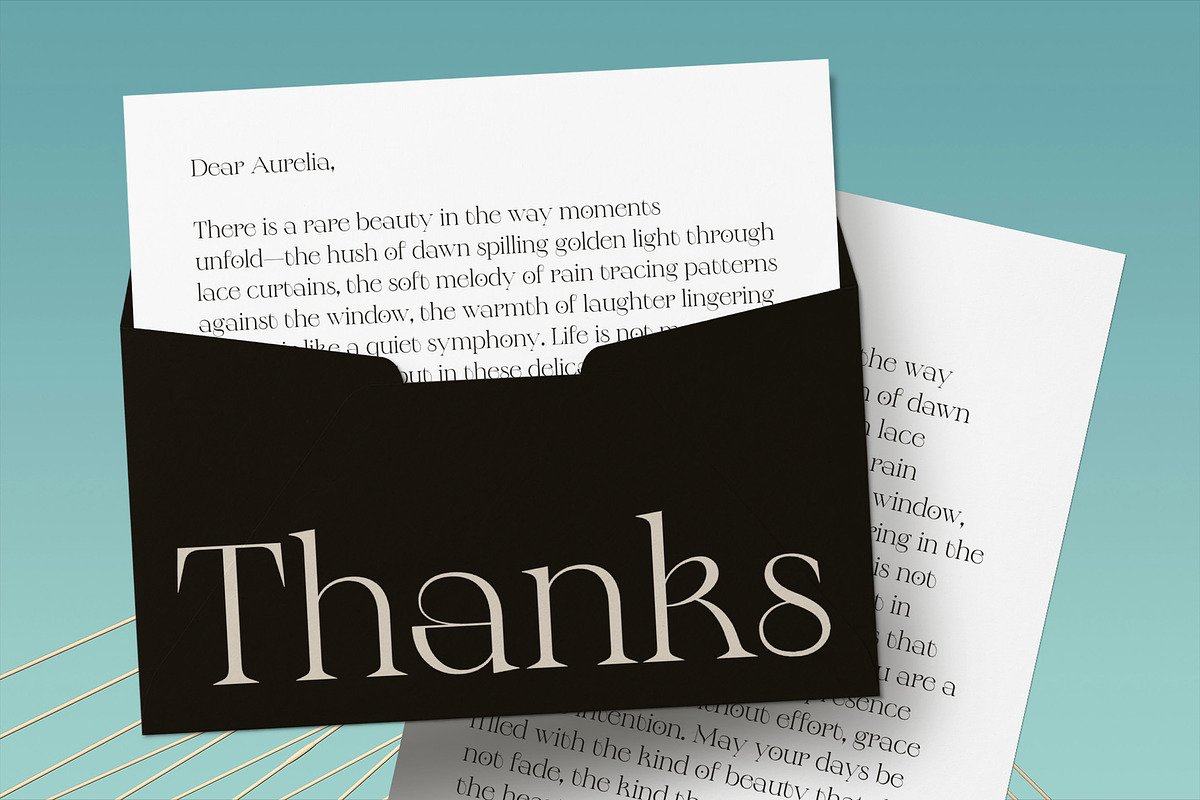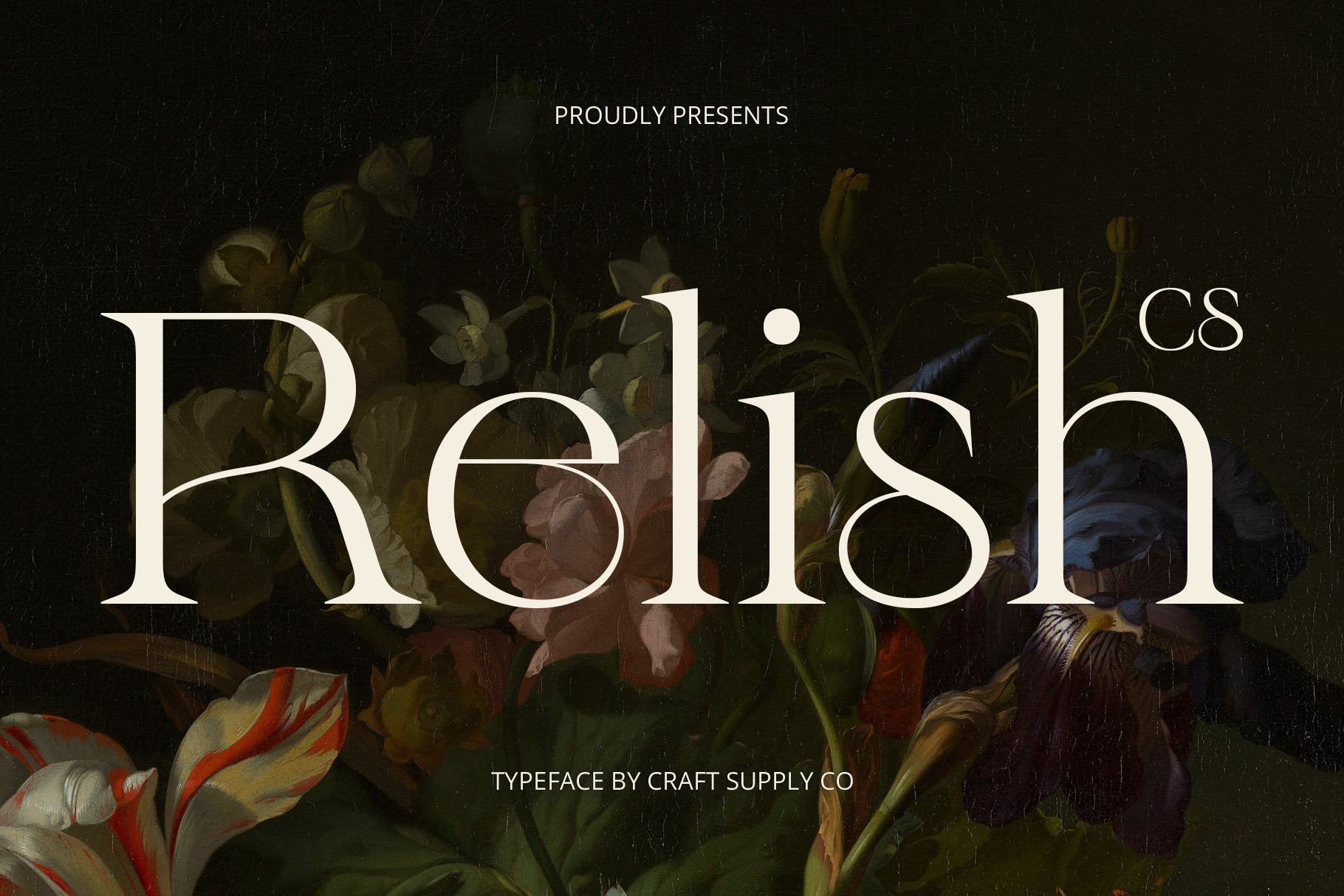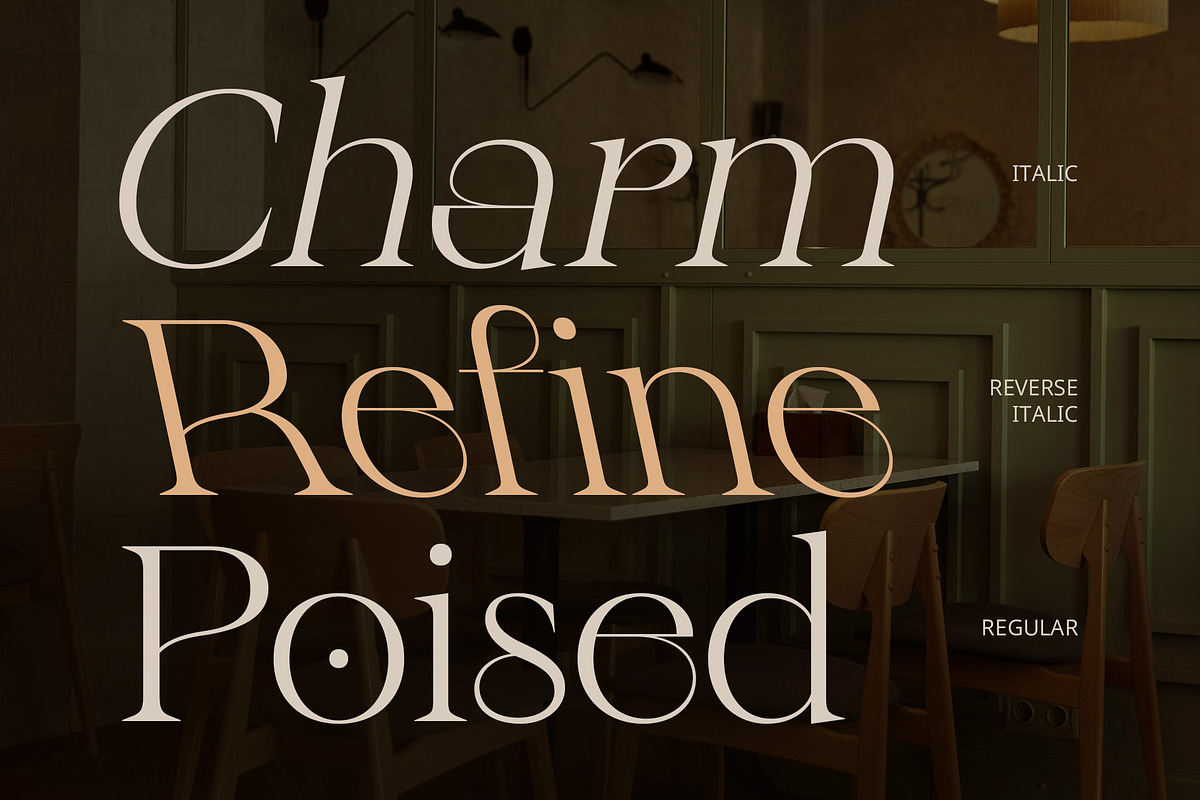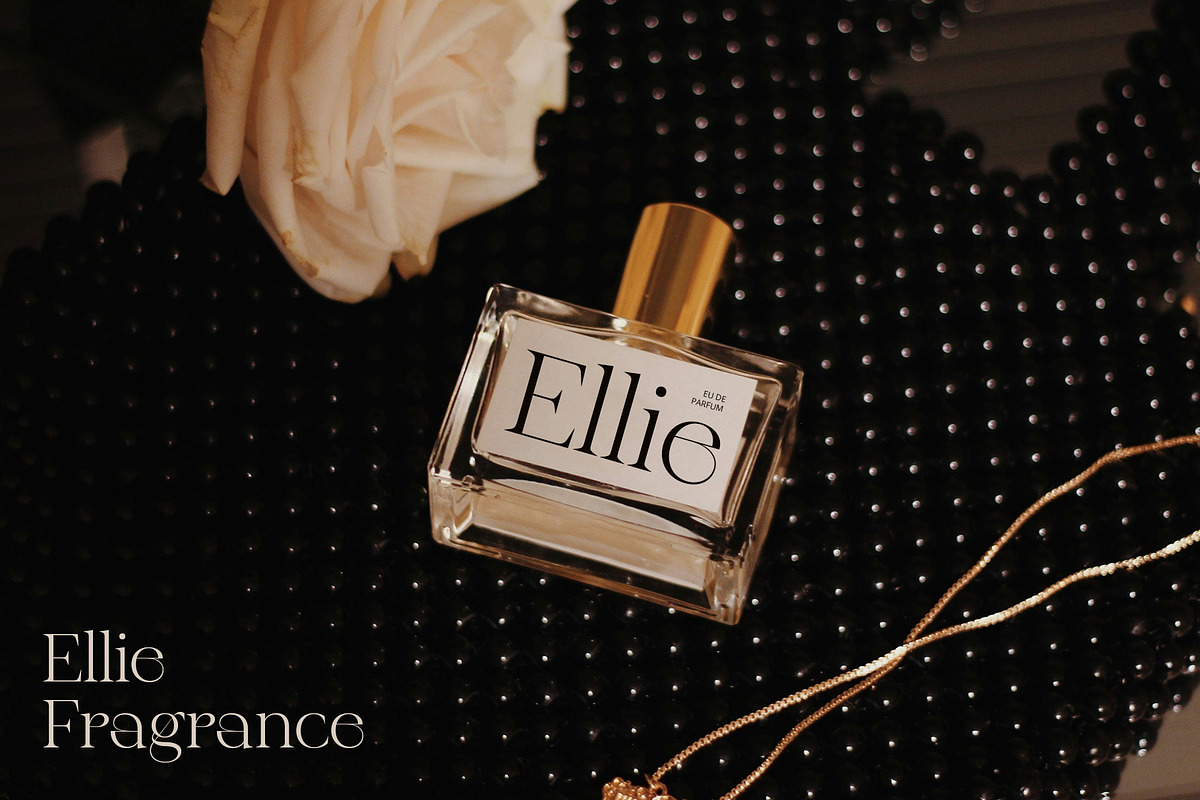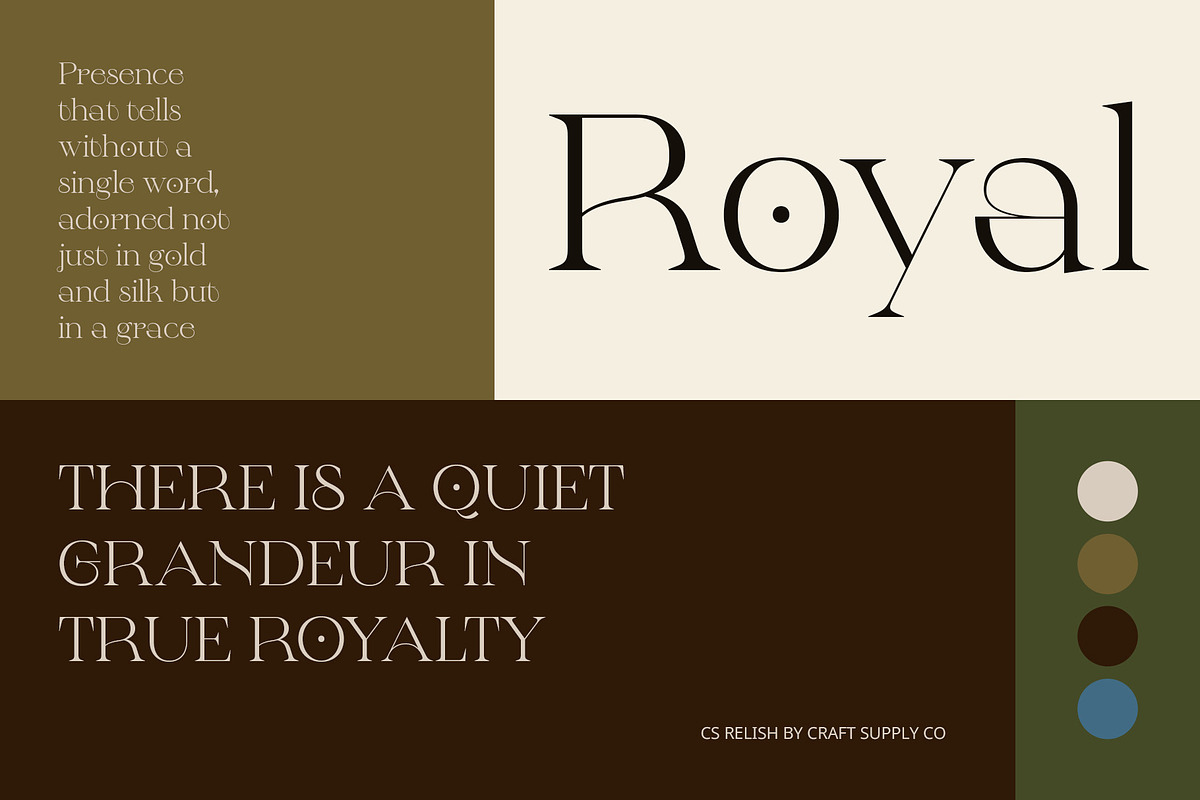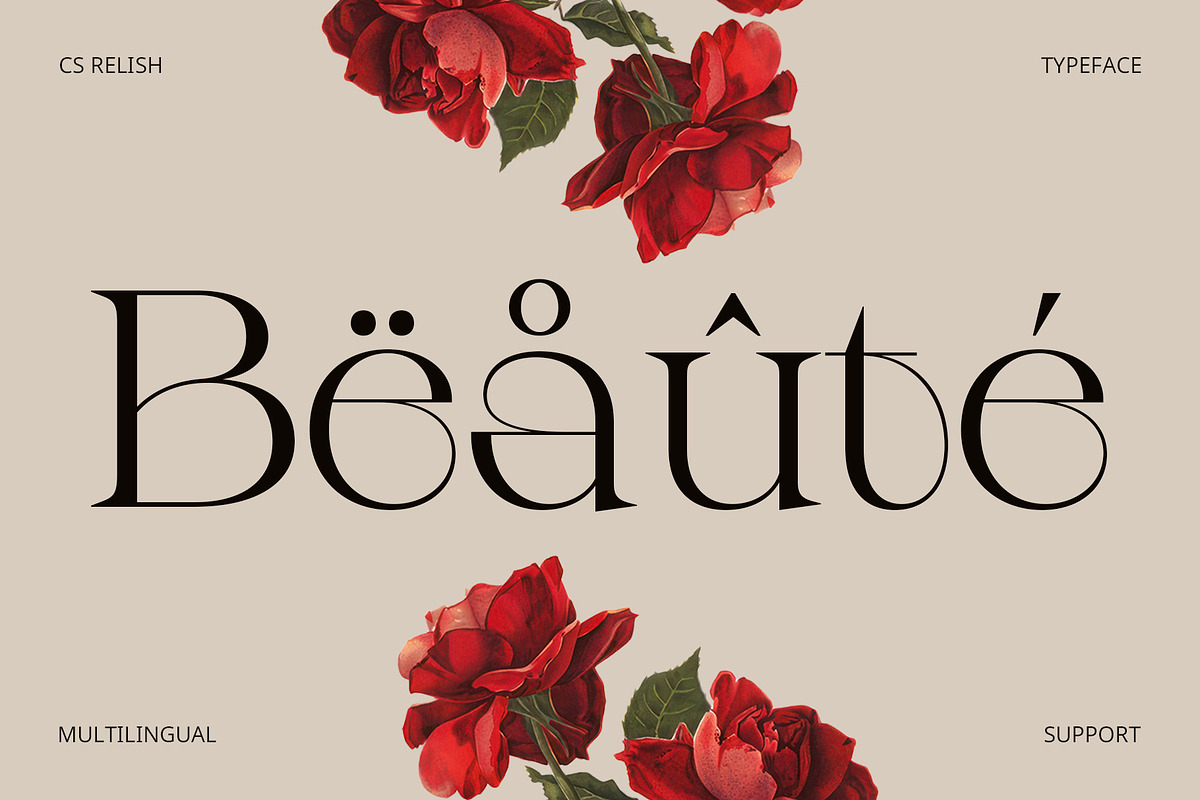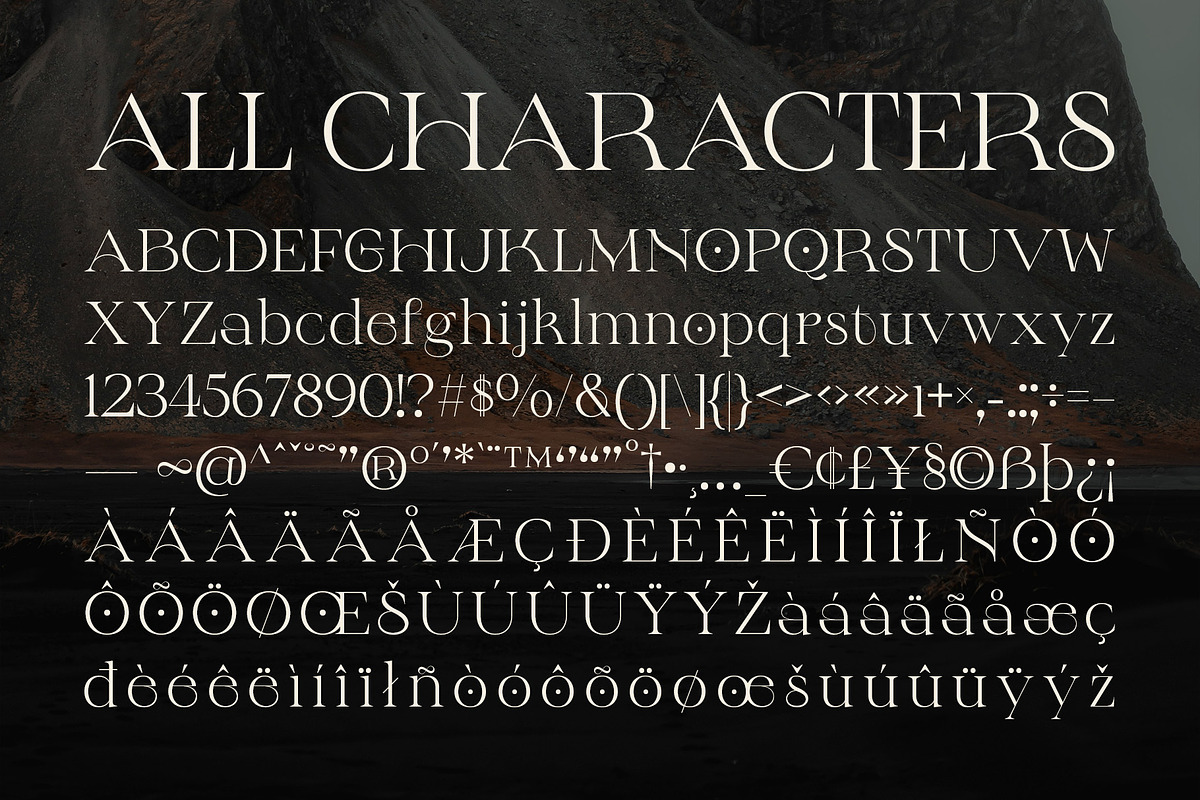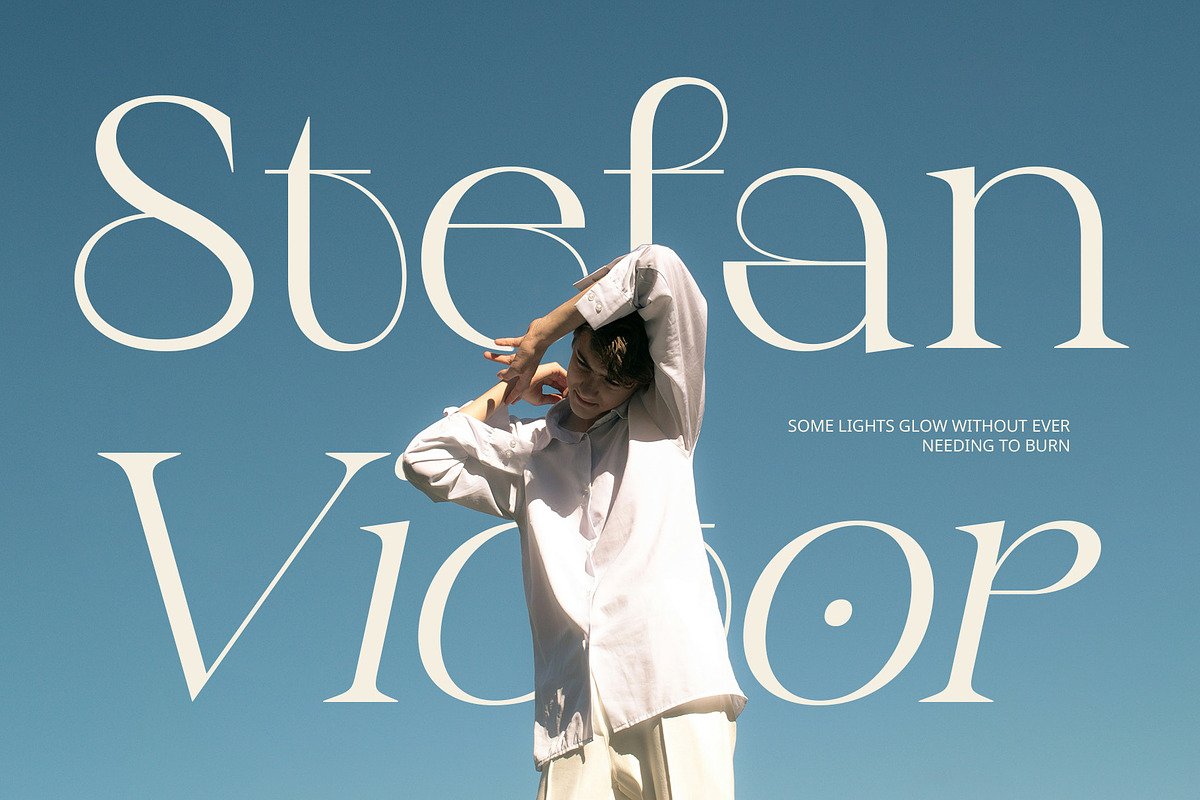
CS Relish – Aesthetic Font
CS Relish – Aesthetic Font: Where Elegance Meets Modern Simplicity
A Timeless Modern Serif Font CS Relish is a modern serif font that blends minimalist aesthetics with refined sophistication. With its sleek, clean letterforms and balanced structure, it creates an elegant and contemporary impression. Designed for those who appreciate subtlety and class, this font adds a sense of luxury and artistic charm to any visual identity.
Graceful Proportions and Subtle Details Featuring delicate strokes, smooth curves, and carefully measured proportions, CS Relish ensures a polished and professional look. Its high readability and subtle contrast make it versatile for both display and text usage, offering a seamless blend of modern refinement and timeless beauty.
Perfect for Luxury, Fashion, and Editorial Design Designed to complement high-end branding, fashion labels, beauty products, and premium packaging, CS Relish delivers an upscale, stylish presence. Whether used in magazines, logo design, or advertising, it enhances the sophistication and prestige of any project, making it the ideal choice for designers looking to create a sleek and upscale visual experience.
A Versatile Serif with a Contemporary Flair Beyond luxury branding, CS Relish adapts beautifully to wedding invitations, editorial layouts, and artistic typography, bringing a touch of grace and finesse. Its modern yet classic charm allows it to seamlessly fit into various creative fields, ensuring a chic, refined, and effortlessly stylish aesthetic.
- CS Relish Regular
- CS Relish Italic
- CS Relish Reverse Italic